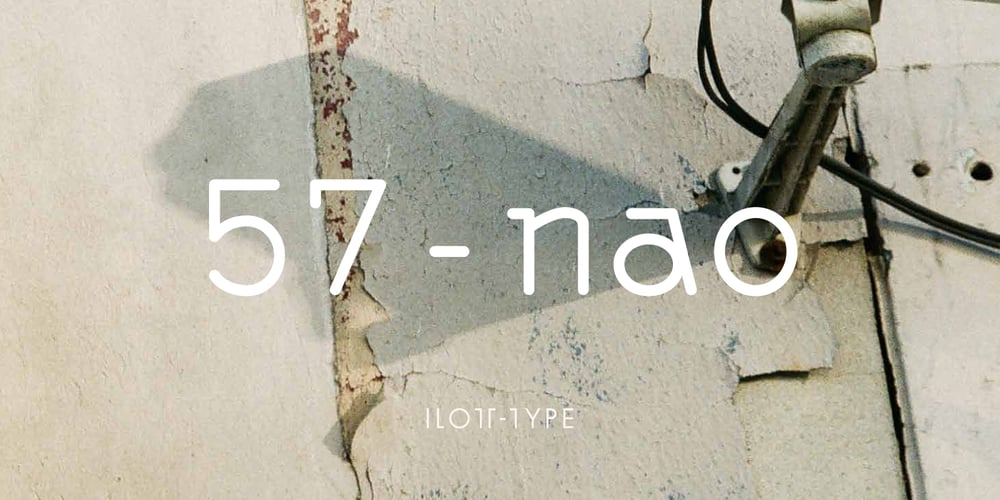
57-nao Font Family was designed by Andrew Bellamy and published by ILOTT-TYPE. 57-nao contains 6 styles and family package options. Designed in 1950s Japan by Okanao & Kushiro, the perfect partnership until artistic temperaments drove them apart. The duo spent years crafting the font with the working title “Messenjā”, Okanao bringing technical expertise to craft letterforms, while Kushiro made it his life, obsessively working late into the night to check pages for errors. For him the project was never about making money, it was an artistic endeavor to reprint the great Western works of literature. When he found out Okanao had secretly sold the rights to the font for use as a logo for a major Japanese manufacturer, Kushiro burned all evidence of the designs in a fit of passionate fury. The two reportedly never spoke again. “Messenjā” was thought lost forever until a type specimen was discovered in a vintage typewriter box bought on eBay. Now redrawn and available as 57-nao, a faithful and beautifully crafted monospace characterized by what is considered Okanao’s defining moment, the angular loop on the lowercase ‘a’.